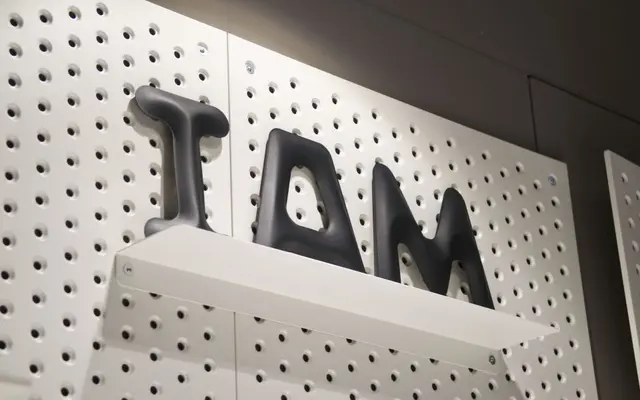
Maria letters
Physical blown metal alphabet letters available in connected and unconnected variants, designed for wayfinding signage and interior decoration.
Produced from blown metal on request, these 300 mm characters come in Inox and RAL 7021 dark grey matt finishes, each supplied with a mounting kit ready for wall installation. The forms are deliberately curvy and visible, positioned against minimal no-design aesthetics, and suited to wayfinding applications such as car parks as well as decorative domestic use. Average production time is five weeks with free shipping included.
Maria letters are physical blown metal characters designed for wayfinding and interior decoration, placing them firmly in the display/decorative category with no conventional digital type classification applicable.